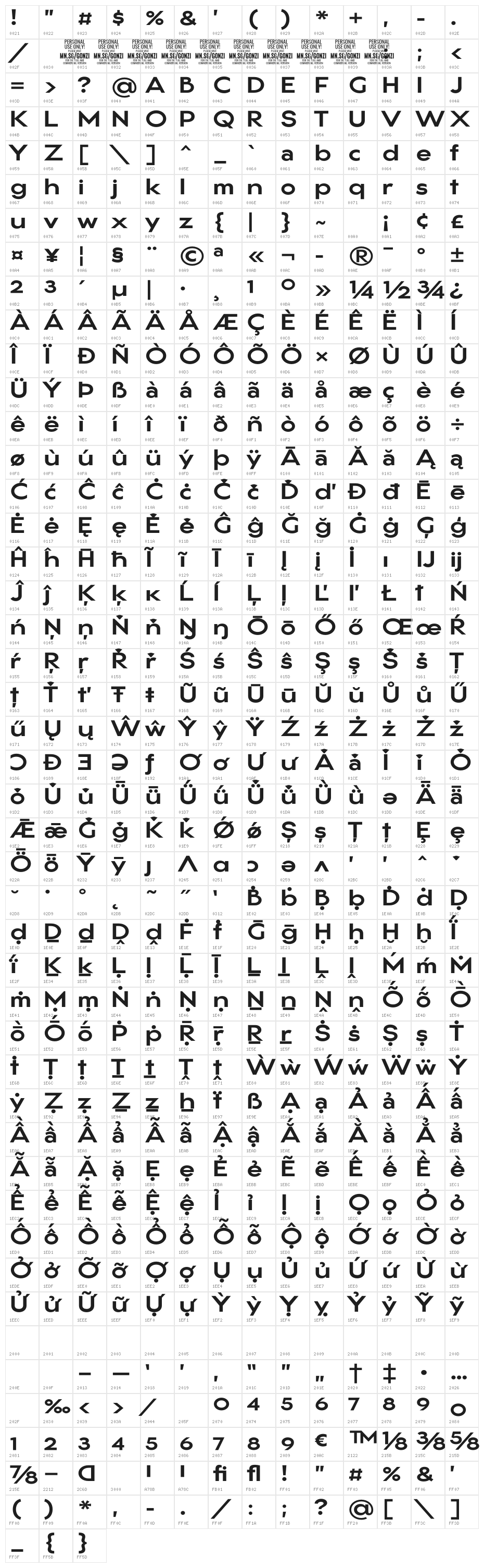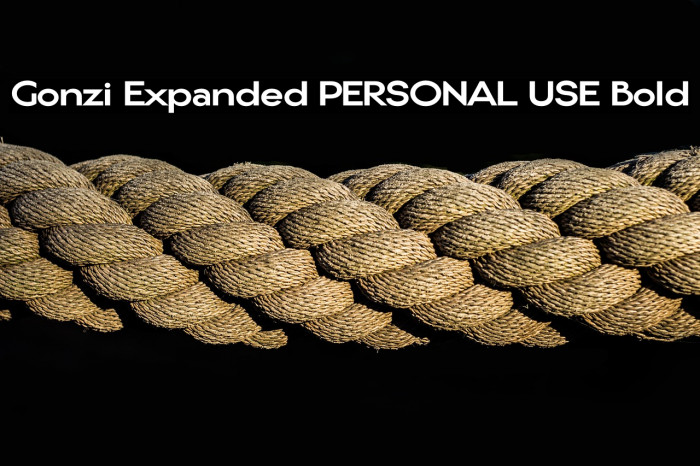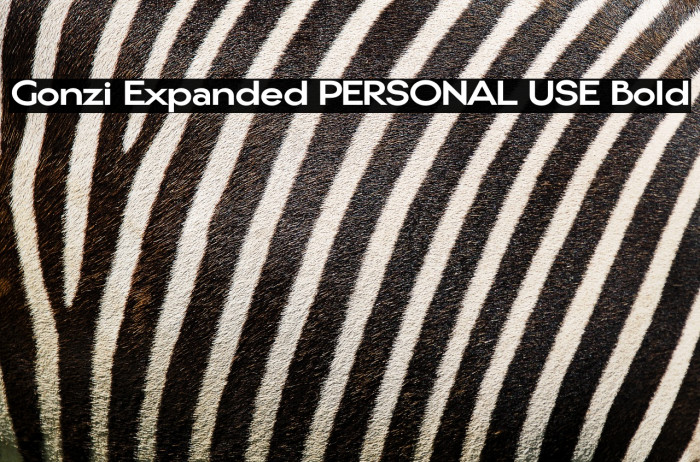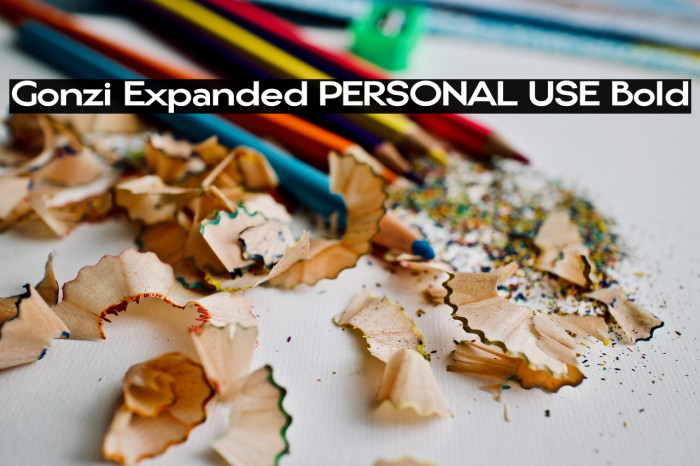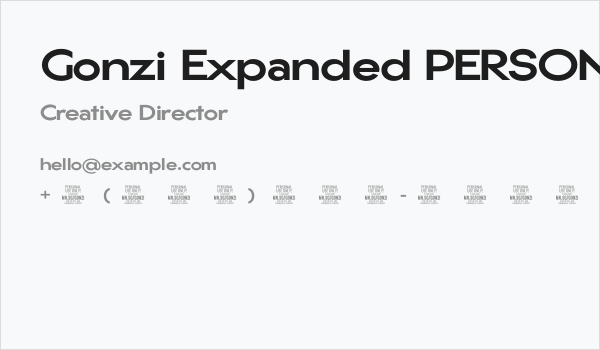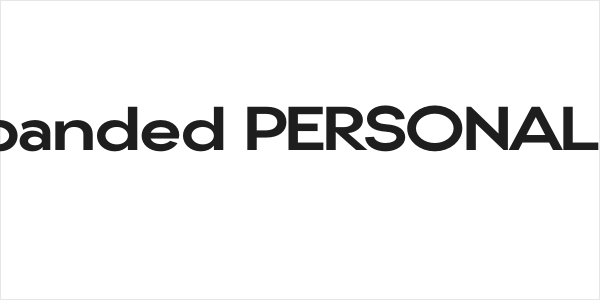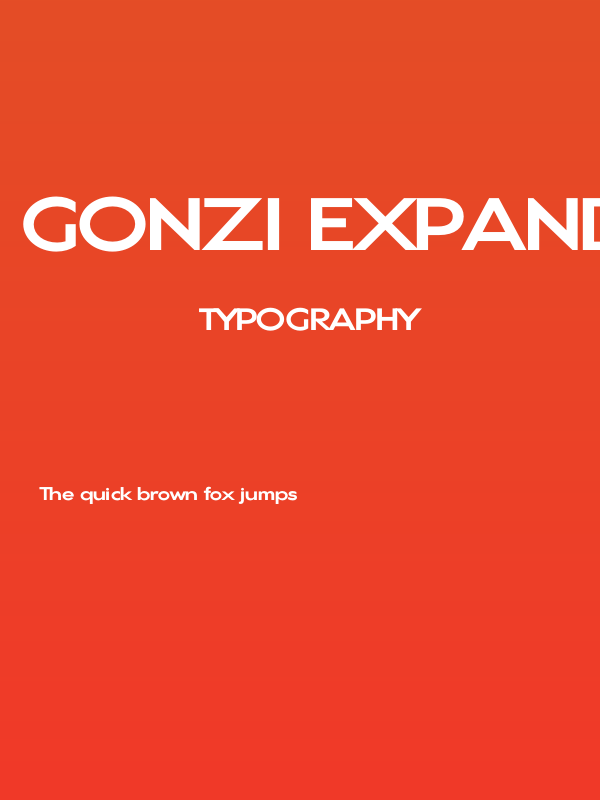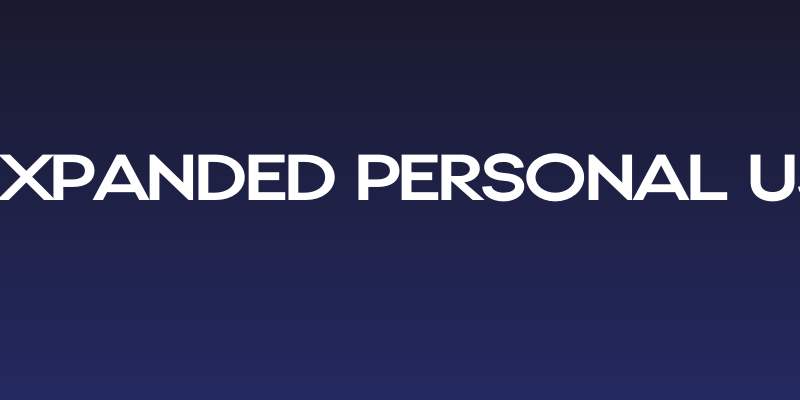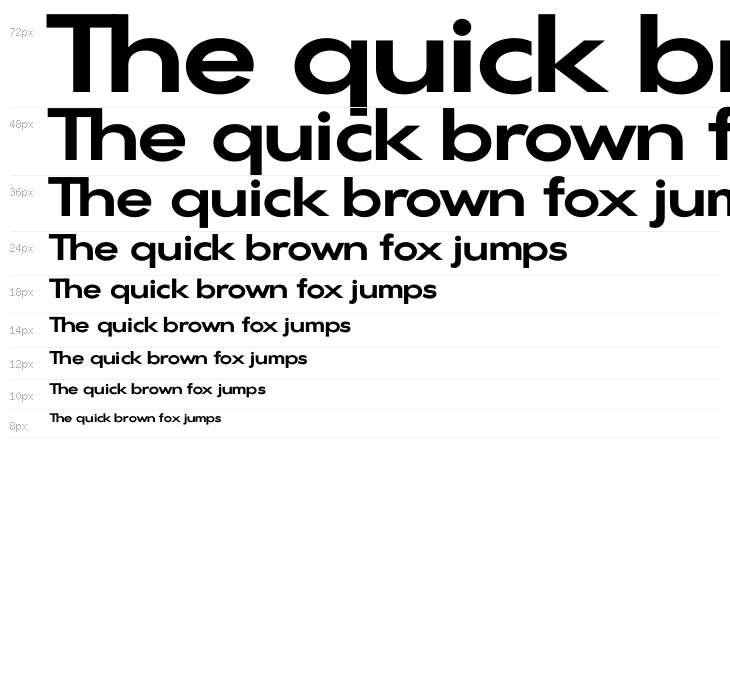
Gonzi Expanded PERSONAL USE Bold Font
Gonzi Expanded PERSONAL USE Bold Description
This font features a bold and expanded style, characterized by its strong geometric shapes and clean lines. The uppercase and lowercase letters maintain a consistent width, giving the typeface a uniform appearance. The characters are well-defined with sharp angles and a modern aesthetic, making it suitable for a variety of design applications. The numerals and special characters are crafted with the same attention to detail, ensuring readability and visual appeal. This font's boldness and expanded width make it stand out, ideal for headlines and display purposes.
| Proposed Projects | Ideal for branding, advertising, posters, and headlines where a strong visual impact is needed. |